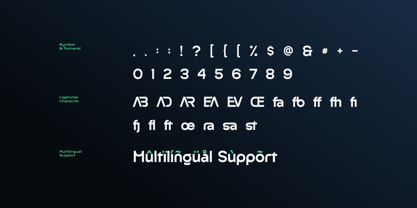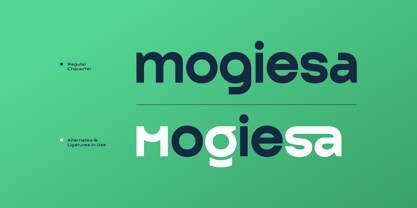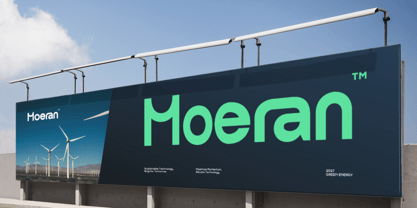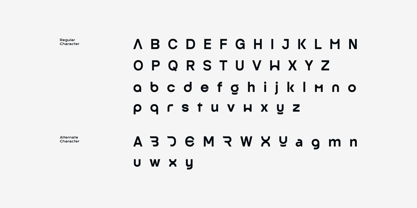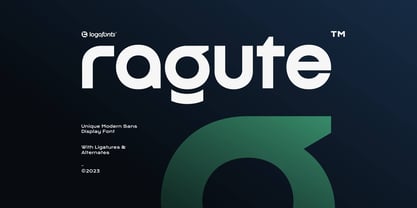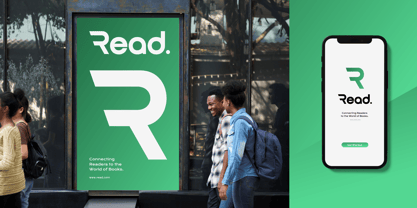
Ragute
by Logofonts
Ragute Font Family was designed by Anna Safitri and published by Logofonts. Ragute contains 1 styles.
This is Ragute, modern, futuristic sans-serif font combines sleek, minimalist design with contemporary elegance. Featuring clean, geometric letterforms and a medium weight, it offers a balanced blend of readability and style. The font exudes a sense of forward-thinking innovation, making it perfect for tech-focused branding, digital interfaces, and cutting-edge design projects. Its smooth, consistent strokes and well-spaced characters ensure clarity, while its bold yet unobtrusive presence adds sophistication to any design. Ideal for both print and digital media, this font brings a modern, futuristic edge to your creative endeavors.
Designers: Anna Safitri
Publisher: Logofonts
Foundry: Logofonts
Design Owner: Logofonts